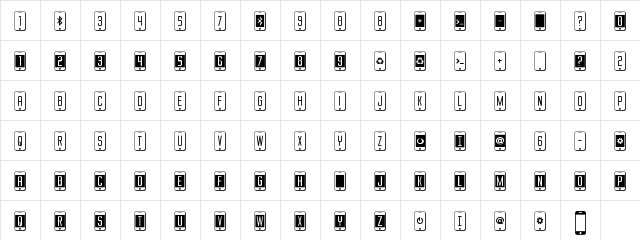
iDroid Outline Outline
Design Context for iDroid Outline Typeface
iDroid Outline is built around its visual character rather than neutral utility — its distinctive forms are designed to make an impression at display sizes.
Font Pairing: Pair with a clean neutral sans-serif for body copy to let iDroid Outline's character lead without overwhelming the composition.
Pro Tip: Treat iDroid Outline as the centrepiece of your typographic hierarchy. One strong heading set in a decorative face can carry an entire layout.